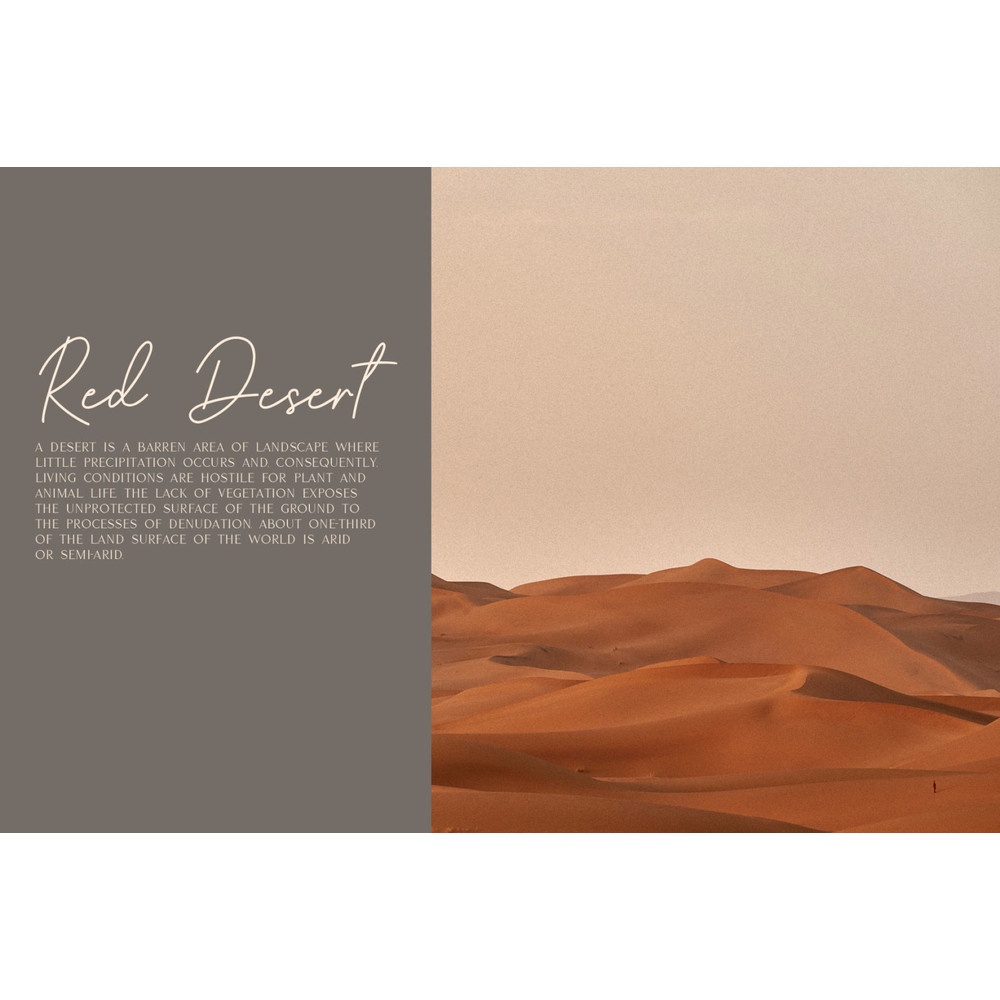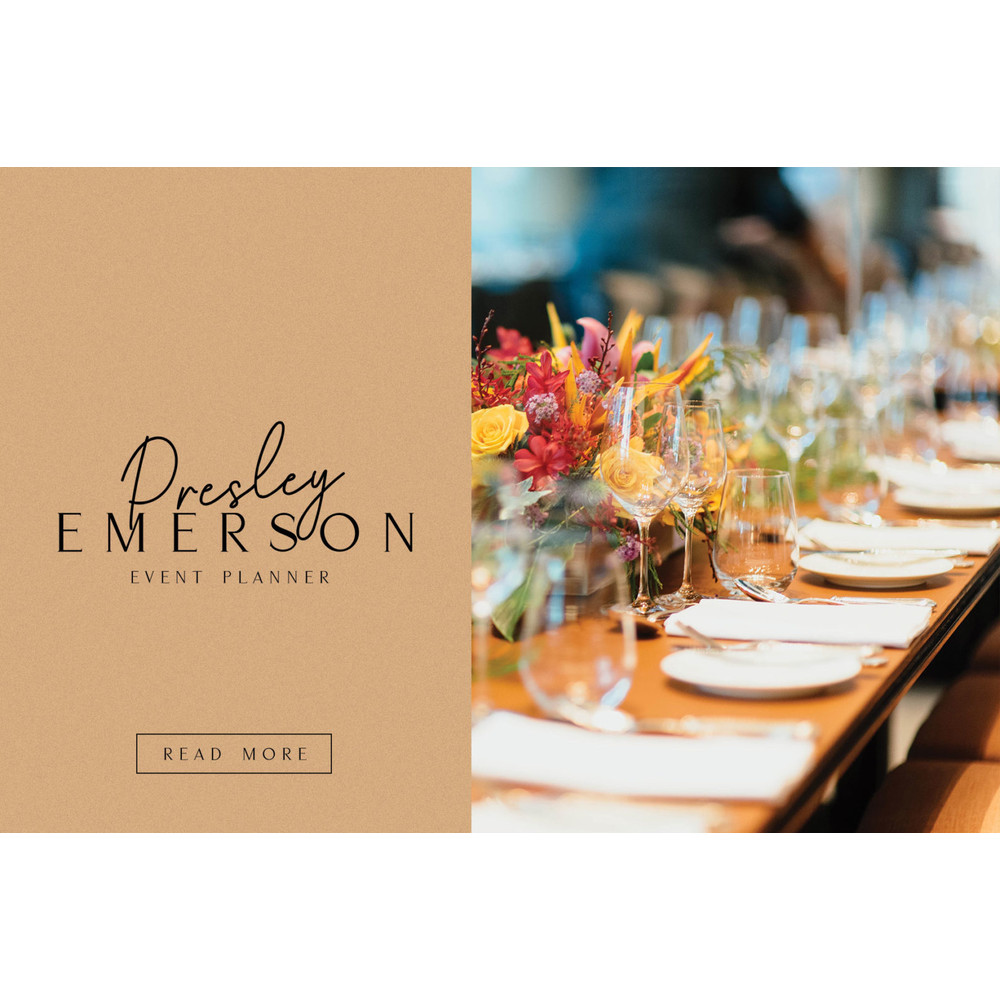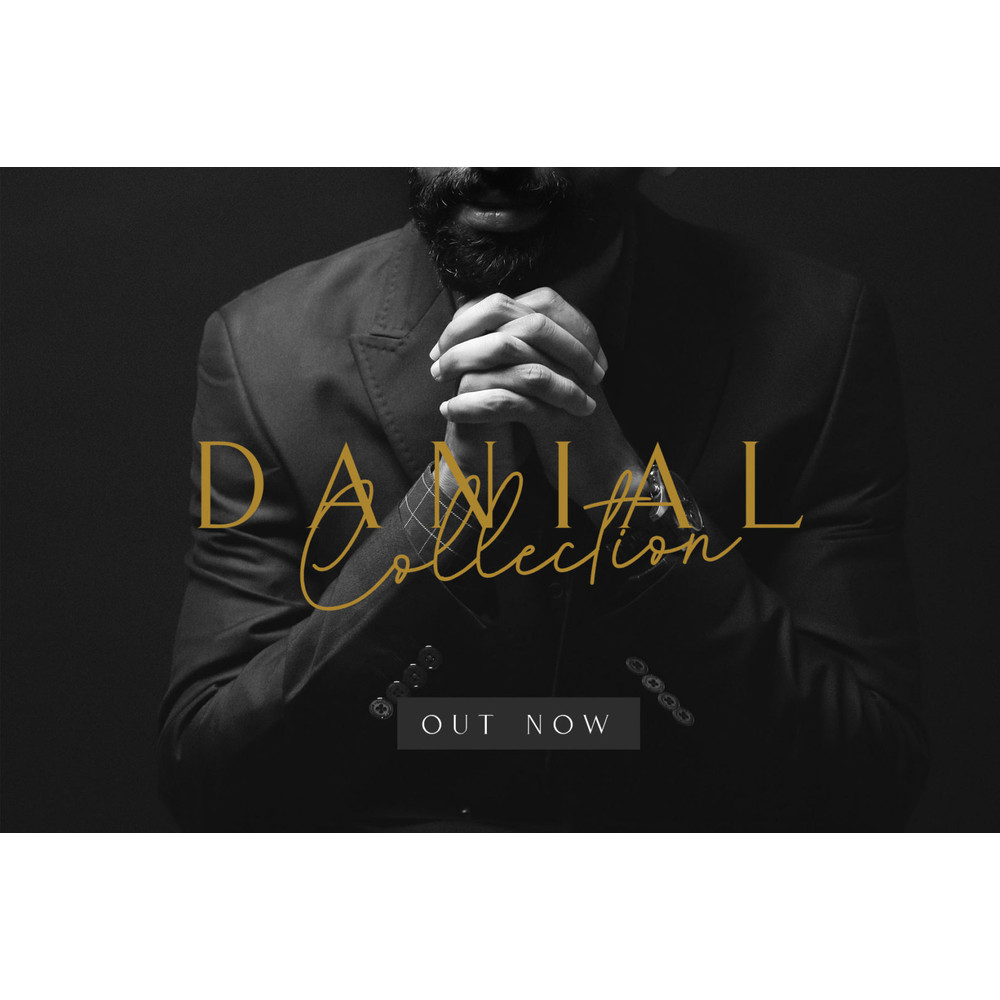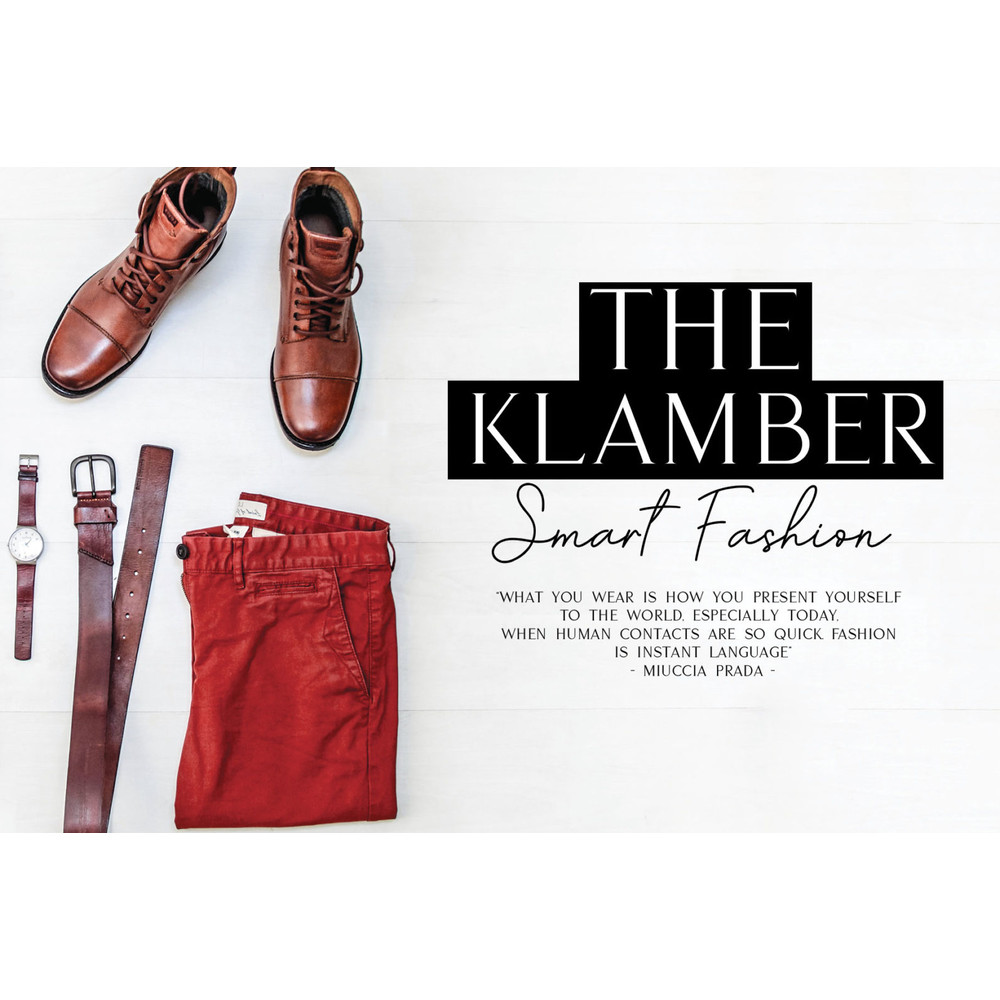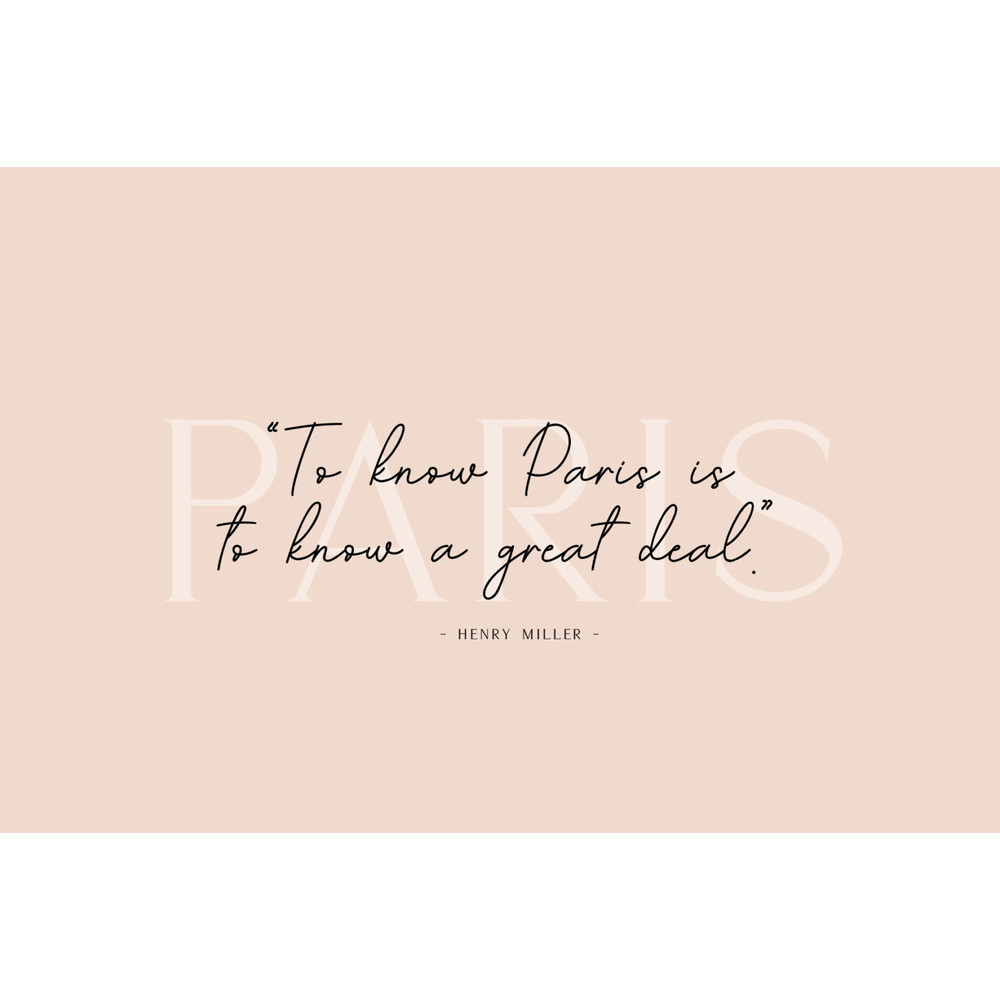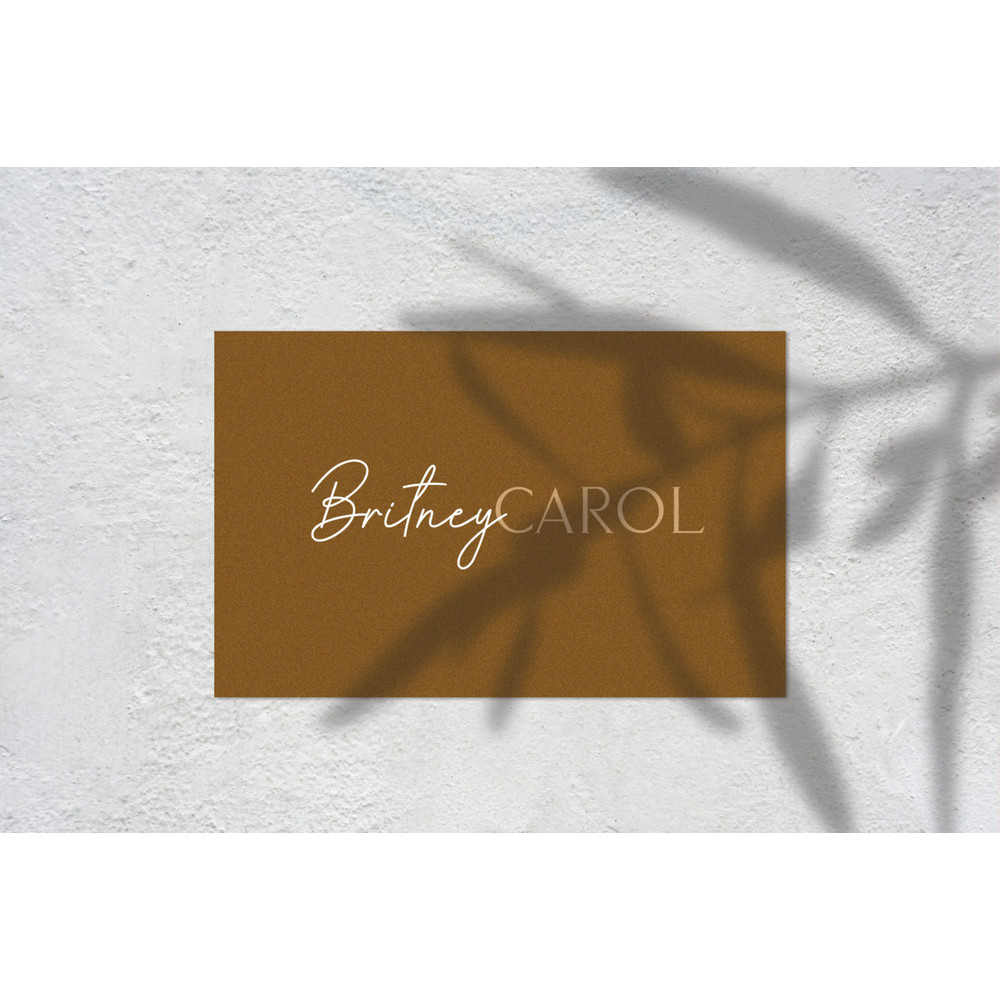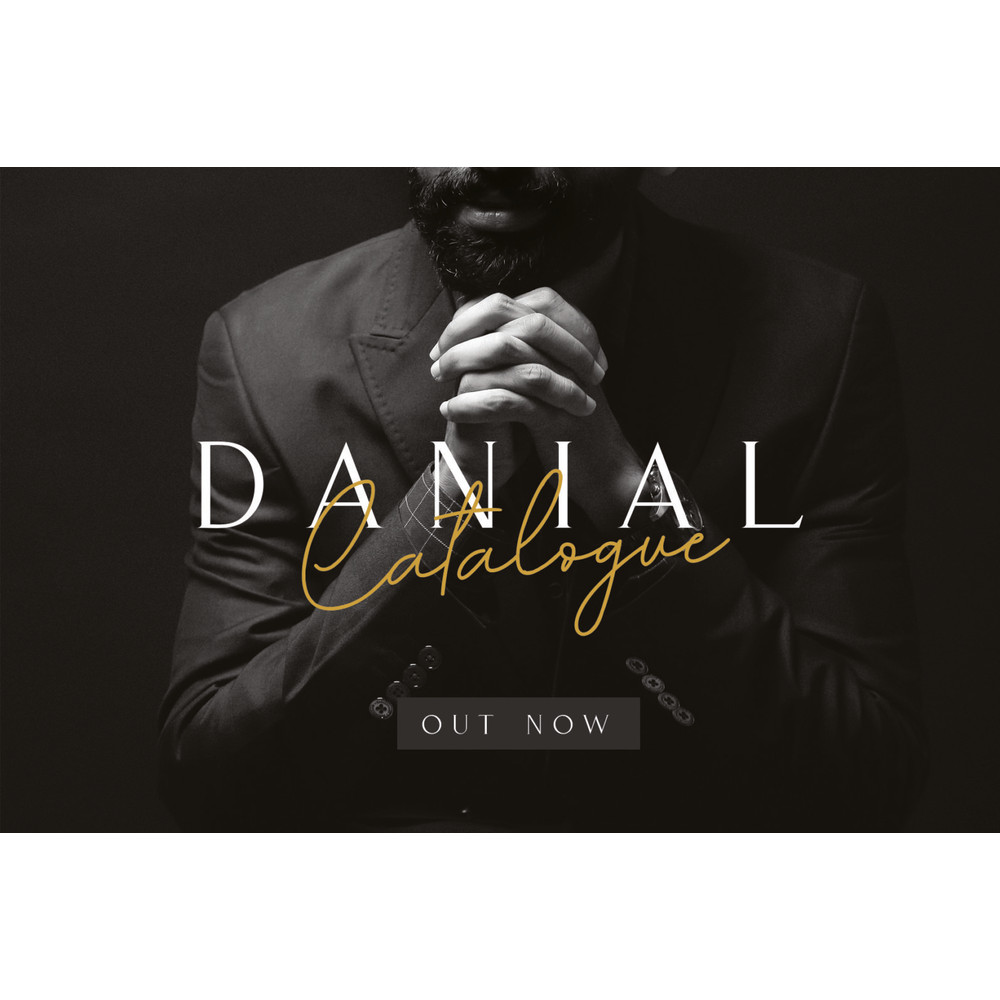
KLAMBER MODERNATION // FONT DUO Trending Fonts - Digital Font
Introducing “KLAMBER MODERNATION” with a clean and casual style that will give a very elegant impression when combined. It’s perfect for branding, posters, magazines, business card wedding invitations, and more options for your needs.
KLAMBER MODERNATION // FONT DUO Trending Fonts - Digital Font
Introducing “KLAMBER MODERNATION” with a clean and casual style that will give a very elegant impression when combined. It’s perfect for branding, posters, magazines, business card wedding invitations, and more options for your needs.